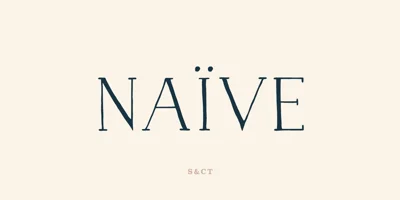
Naive Font
This innocent typeface is perfect for children's book publishing, preschool educational materials, innocent beauty brands, pure wellness products, simple lifestyle blogs, organic baby products, gentle parenting resources, mindful meditation centers, childlike art projects, wholesome family brands, clean eating campaigns, and authentic simplicity marketing. The font's pure design makes it ideal for projects that celebrate innocence, simplicity, and the refreshing honesty of unfiltered expression with genuine authenticity and childlike wonder.
Naive Font is exciting because it embodies pure innocence and childlike wonder through its simple letterforms and unaffected character structure. The font's gentle curves and innocent proportions create an atmosphere of honesty, purity, and natural authenticity, making it perfect for brands that want to convey genuineness, simplicity, and the refreshing appeal of unguarded sincerity. Its innocent personality ensures instant trust while maintaining excellent readability across various wholesome applications.
The Naive Font family includes multiple innocent variations: Light Gentle, Regular Pure, Medium Simple, Bold Honest, and Black Authentic weights, each available in standard and hand-drawn versions. Special childlike editions feature playful alternates, innocent ornaments, and pure symbols that enhance the font's wholesome appeal, providing designers with comprehensive tools for creating authentic innocence-focused communications.
Embrace pure design innocence with Naive Font – a typeface that represents genuine simplicity and childlike authenticity. Whether you're developing children's branding, wholesome lifestyle materials, or innocent beauty campaigns, this font delivers the pure presence and authentic simplicity your projects need while ensuring exceptional performance and innocent impact across all wholesome and authentic applications.